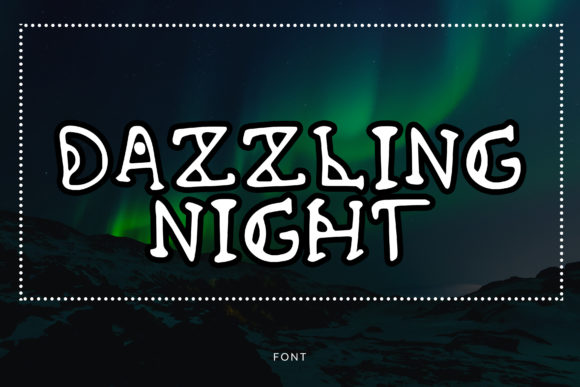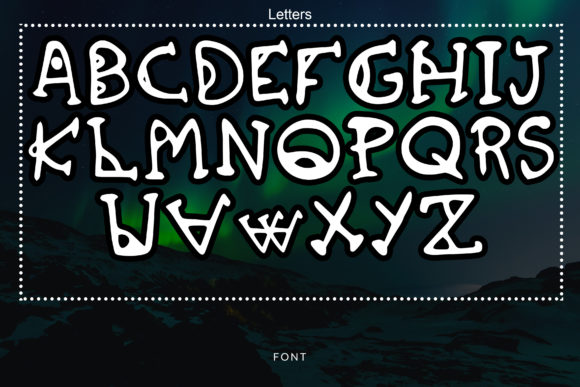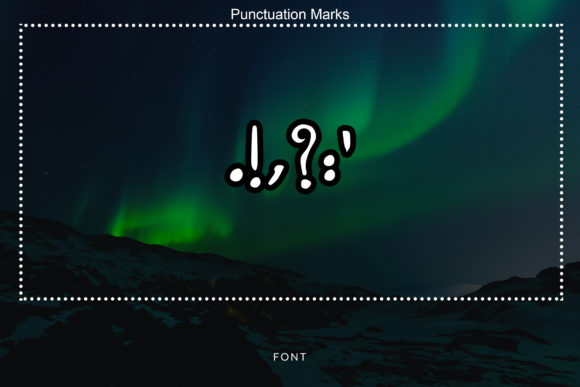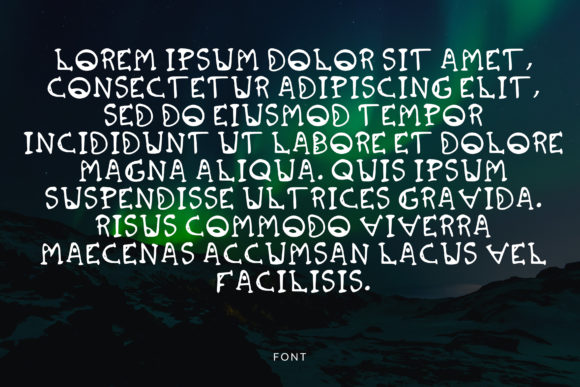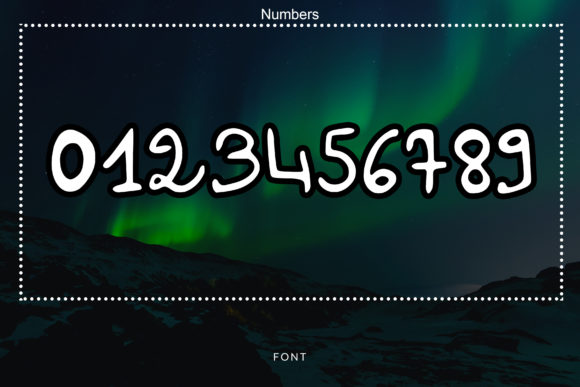
Dazzling Night Font
About Dazzling Night Font
Dazzling Night is a cute and friendly handwritten font. Playful and a little bit quirky, with its psychedelic look, it would look perfect when paired with a conventional serif/sans serif. You can use it for patches, labels, badges, emblems, signs, stickers, headlines, blog headers, branding, packaging, apparel design, and much more.